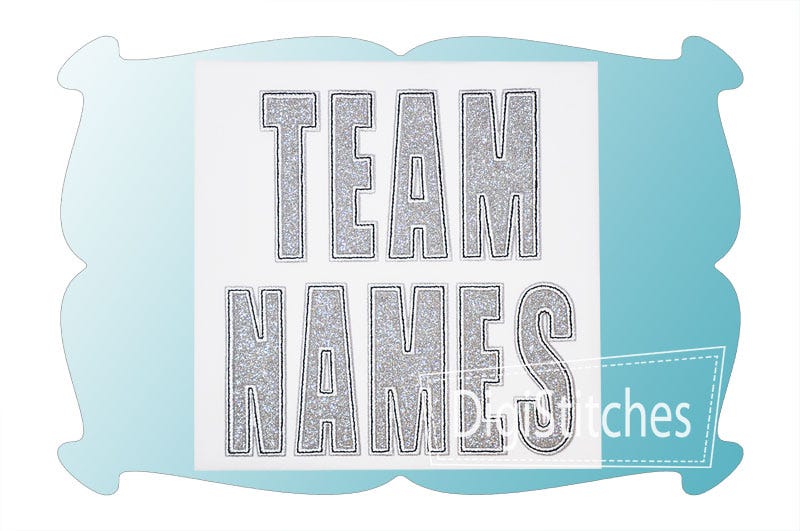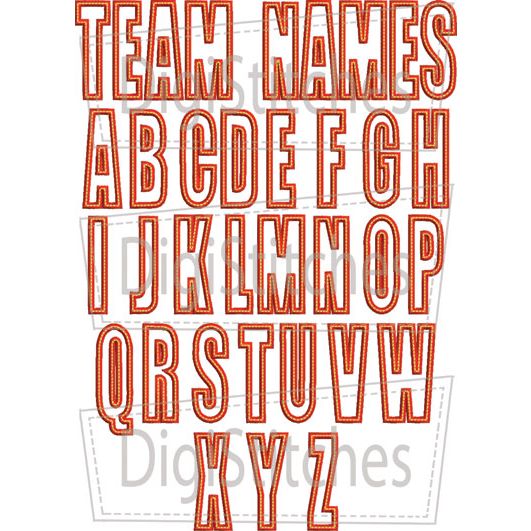
Team Names Satin Stitch Applique Embroidery Font
Team Names Applique Font
Applique team shirts with this super versatile sports font. GO TEAM!
Capital letters A thru Z as shown.
3 finishing styles included: satin, satin with a triple/ bean stitch (as shown) and a triple stitch (for a raggy edge applique).